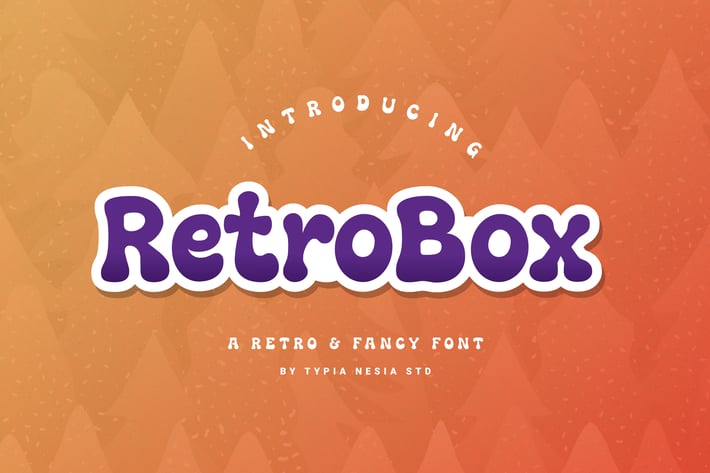
Retrobox Retro Fancy Font
Retrobox Retro Fancy Font - Cartoon Font
Retrobox is perfect for your up coming projects. Such as logo branding, editorial design, stationery design, blog design, modern advertising design, card invitation, art quote, home decor, book/cover title, special events ( birthday, etc ), and any more.